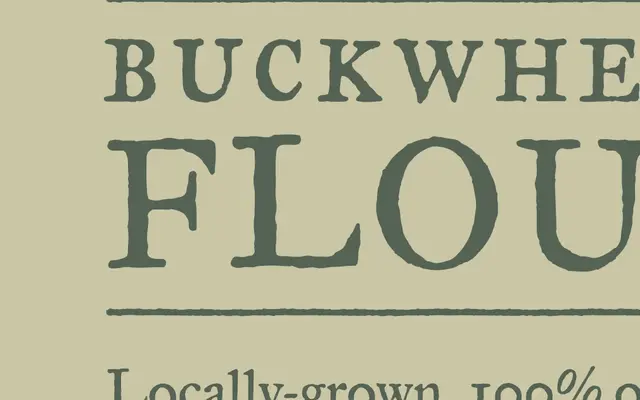
Historical Allsorts
Hoefler & Co · Jonathan Hoefler · 1993
A four-face historical revival set from Jonathan Hoefler, gathering blackletter, uncial, civilite and fraktur into a single curiosity package for period-correct display work.
A small set of historical display revivals by Jonathan Hoefler, gathered into a single release. Historical Allsorts pulls together four self-contained faces drawn from different periods of pre-industrial typography: a civilite cursive, an early uncial roman, an English textura blackletter and a fraktur. None is meant as a working text face. They sit in editorial illustration, packaging and book design where designers want a historically literate counterpoint to a modern serif or sans without commissioning custom lettering.
H&Co package Historical Allsorts as a collection of four self-contained historical revival faces: a blackletter (St Augustin Civilite), an early roman (Great Primer Uncials), an eighteenth-century script (English Textura) and a fraktur. Sold together as a curiosity set rather than as a coordinated system.